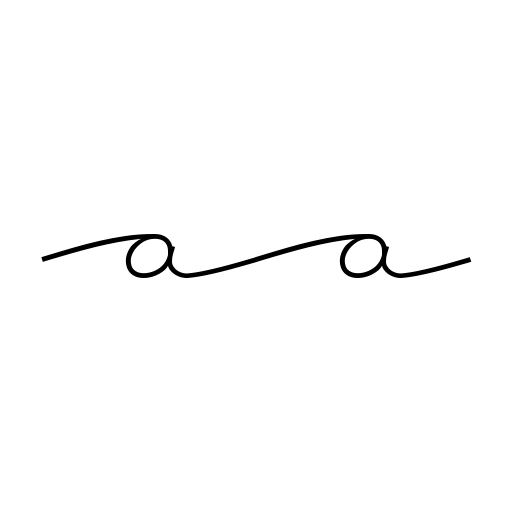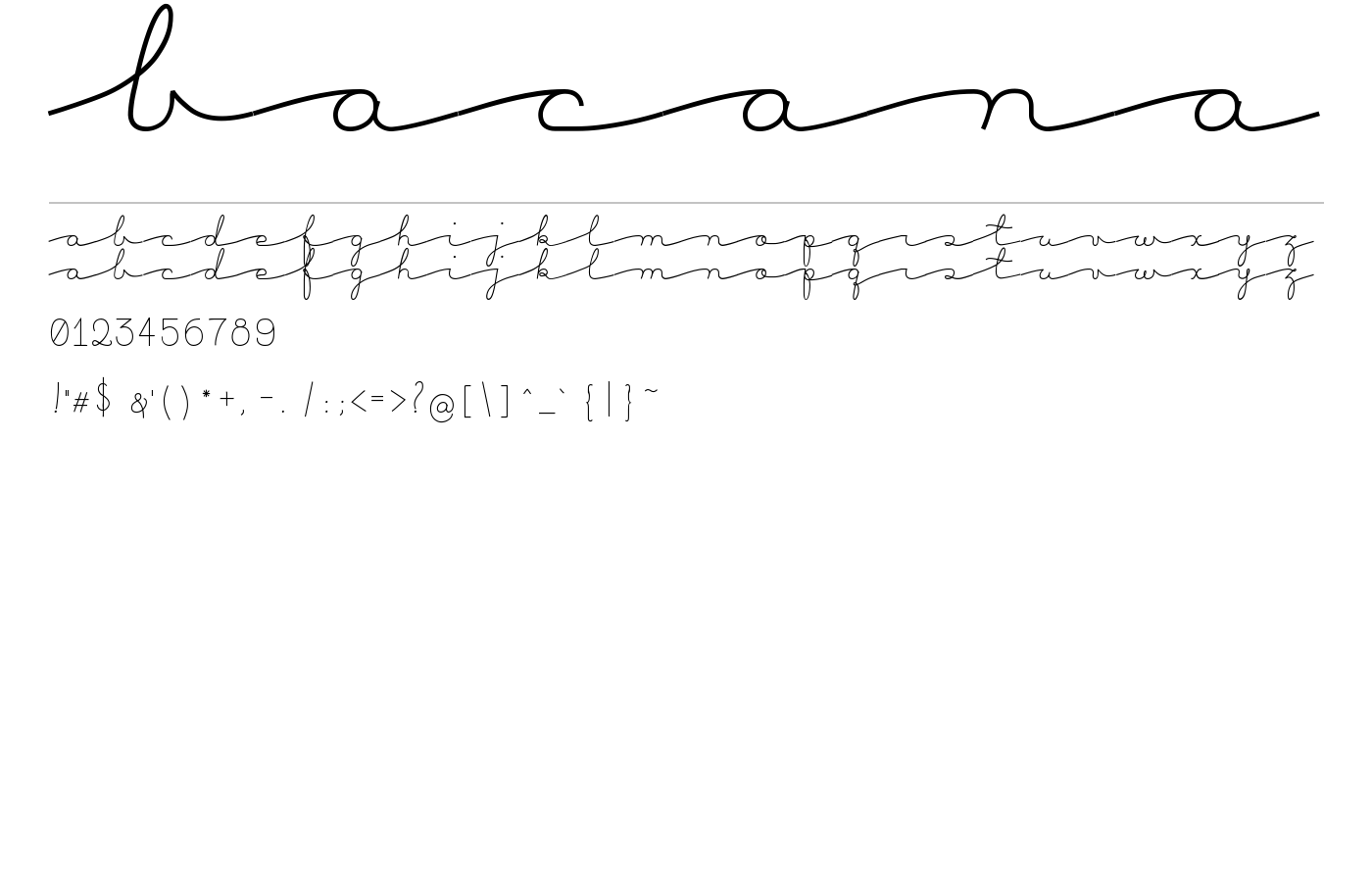
Bacana is a delicate, hand-drawn script font characterized by its ultra-thin strokes and flowing, connected letterforms that create an elegant, casual feel. Its light weight and airy structure make it perfect for personal branding, invitations, and creative projects where a refined yet approachable touch is desired. This font works beautifully in designs that seek a sense of charm and individuality without overwhelming the visual space.
Bacana Font
About Bacana Font